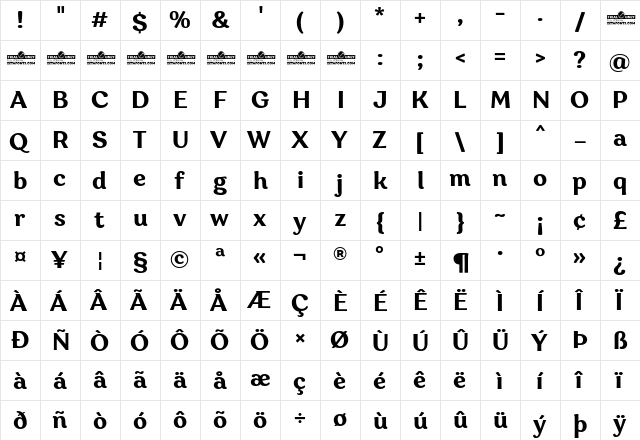
Garbata Trial Bold
| Foundry | Zetafonts |
| Designer | Francesco Canovaro, Debora Manetti |
Design Context for Garbata Trial Typeface
Garbata Trial offers clean, dependable letterforms without strong stylistic allegiance, making it a practical choice for designers who need flexibility. The heavy weight commands attention and anchors typographic hierarchies.